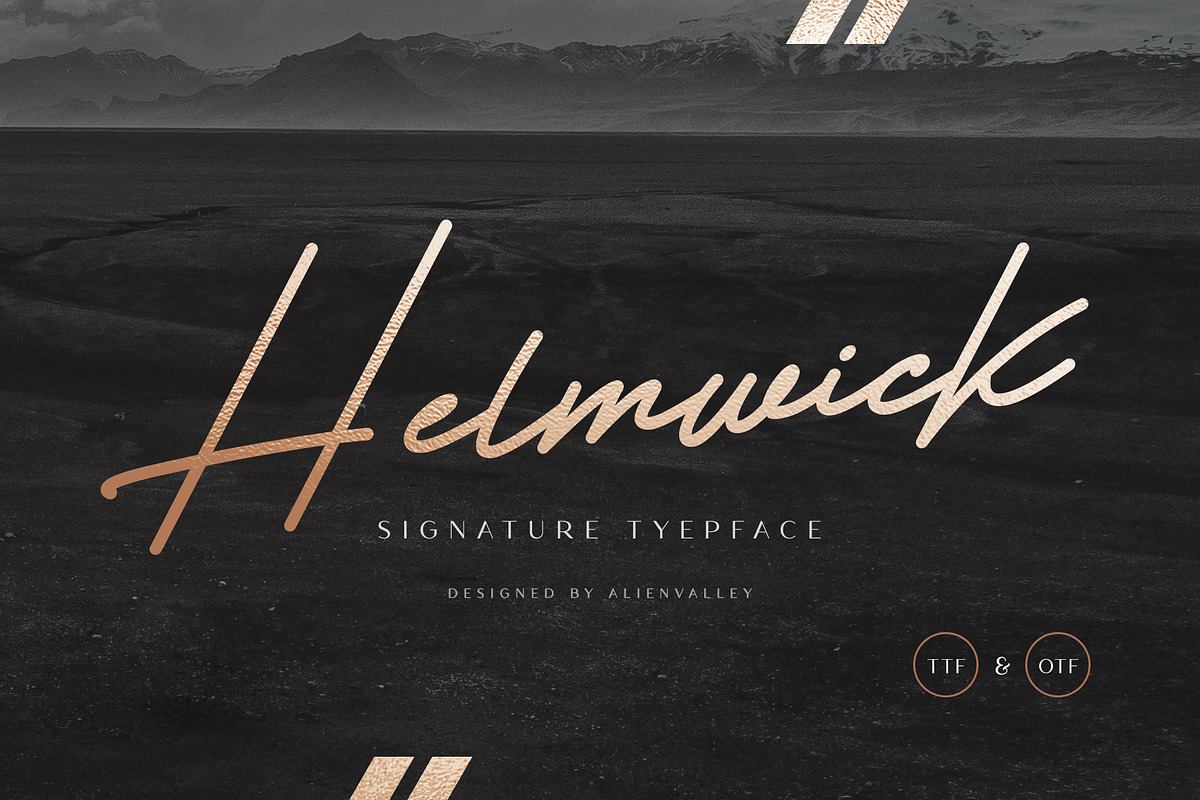
Helmwick – Signature Script Font Free Download is a sleek and sophisticated handwritten typeface that mimics the natural flow of a personal signature. Perfect for logos, business cards, fashion branding, and upscale packaging, this font adds elegance and individuality to your work.
Designed with smooth strokes and graceful movement, Helmwick – Signature Script Font Free Download brings a professional yet personal touch to every design. Whether you're crafting a boutique logo or signing off a stylish brand identity, Helmwick delivers clean, confident script lettering with high-end appeal. Try it in your next project to feel the refined charm—then upgrade to a commercial license when you're ready to present it to the world.